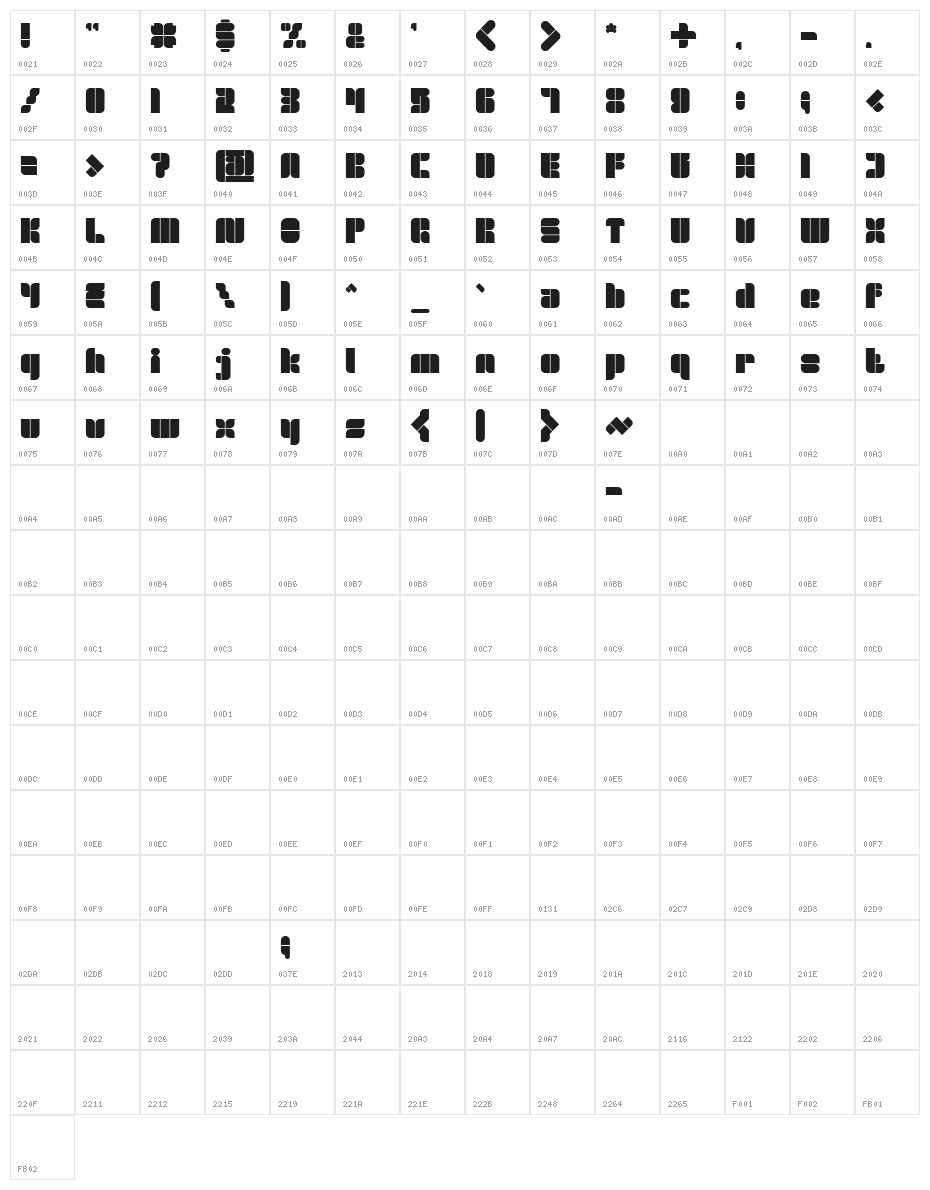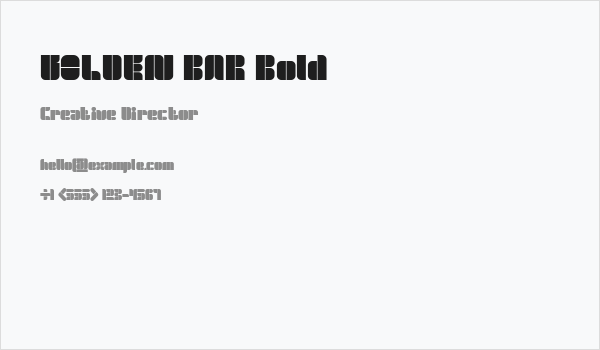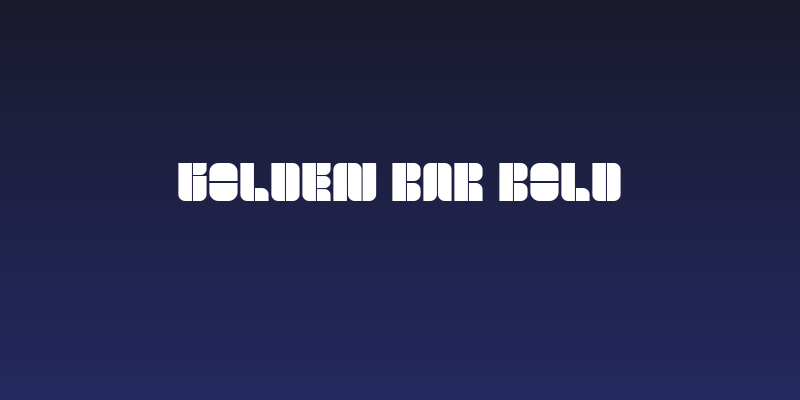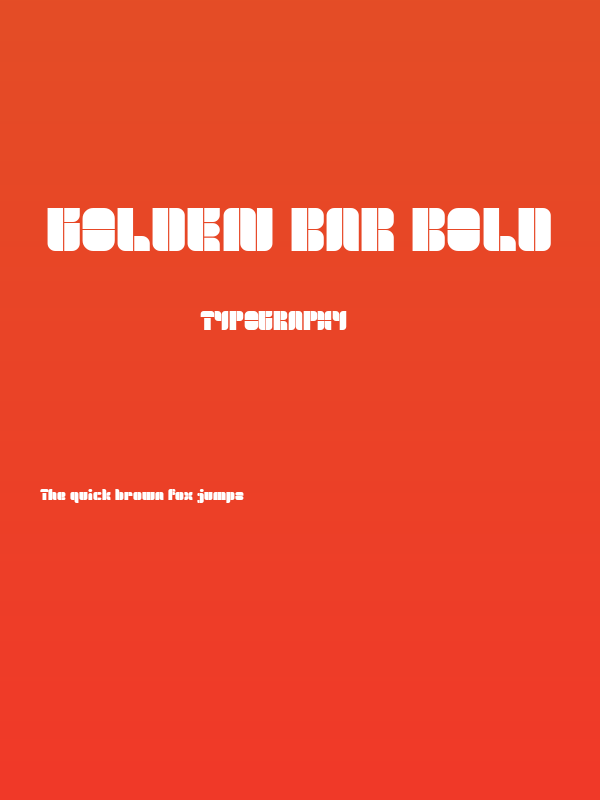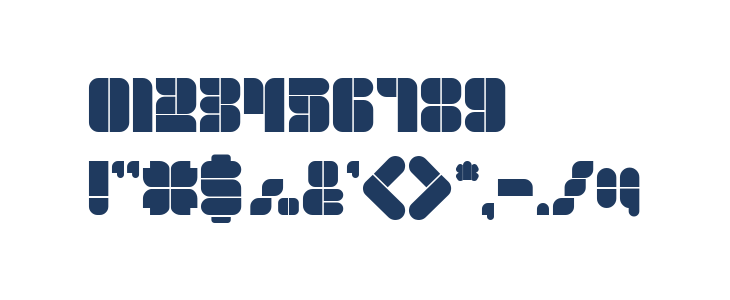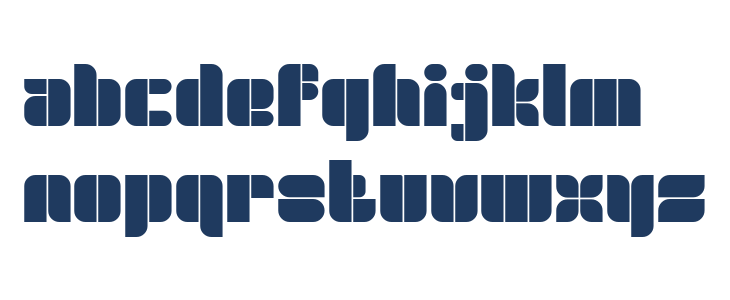
GOLDEN BAR Bold Font
GOLDEN BAR Bold Description
This font features a bold, geometric design with a modern and futuristic aesthetic. The characters are constructed with thick, block-like shapes, giving them a strong and impactful presence. The rounded edges and uniform thickness create a cohesive and visually striking appearance. The font is highly stylized, with a unique blend of curves and straight lines that make it stand out. It's ideal for projects that require a bold statement or a contemporary look. The uniformity in stroke width and the absence of serifs contribute to its clean and modern feel.
| Proposed Projects | Ideal for branding, posters, headlines, and any design needing a bold, modern touch. |